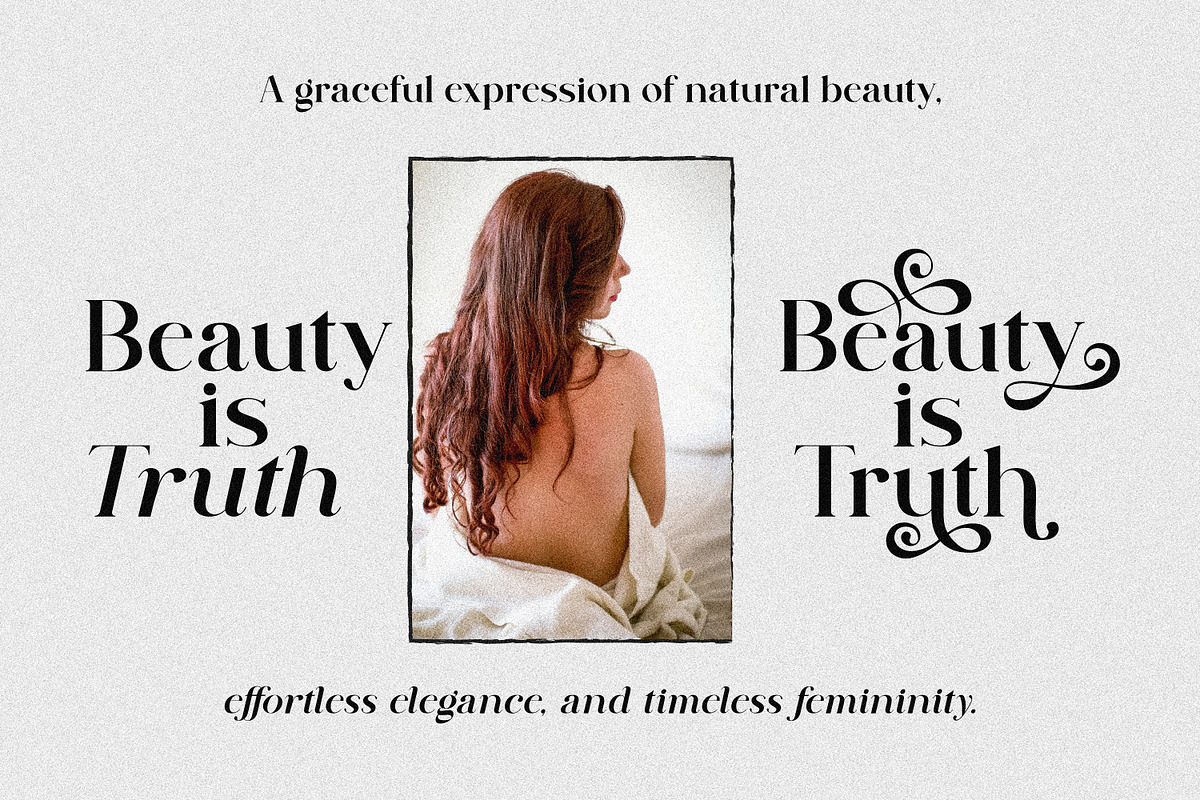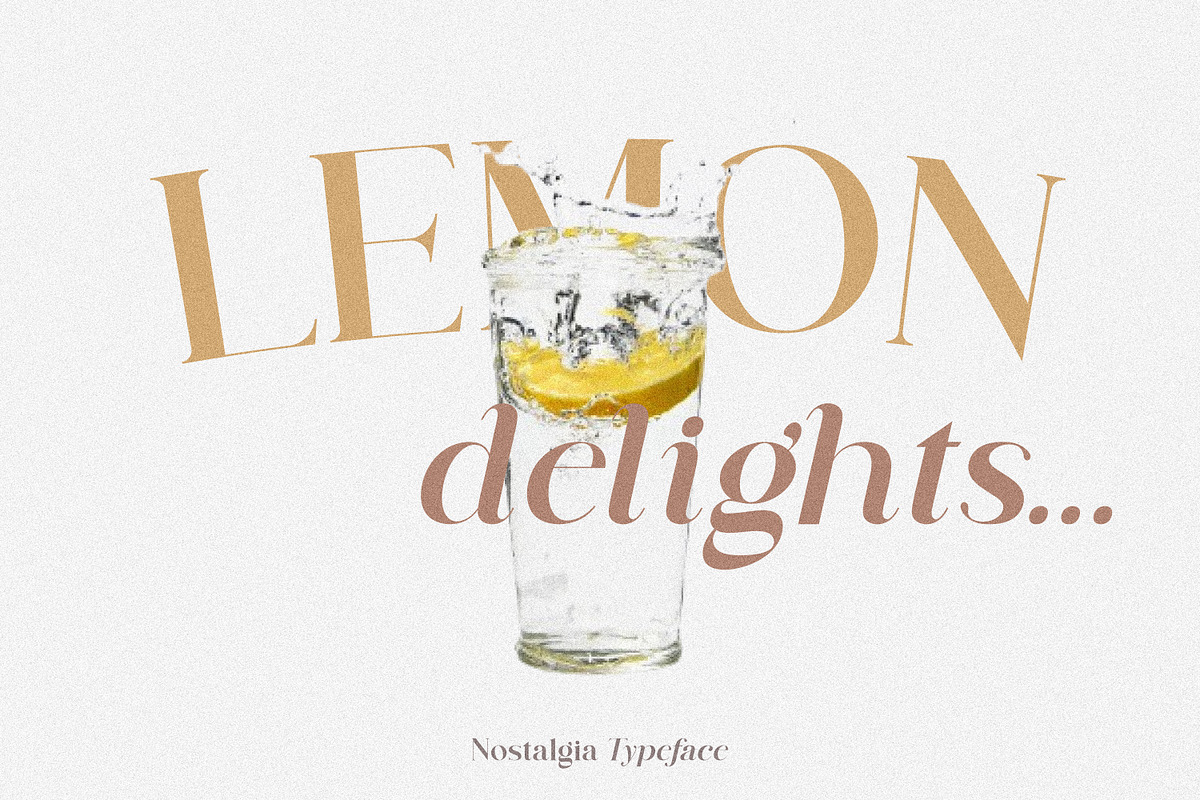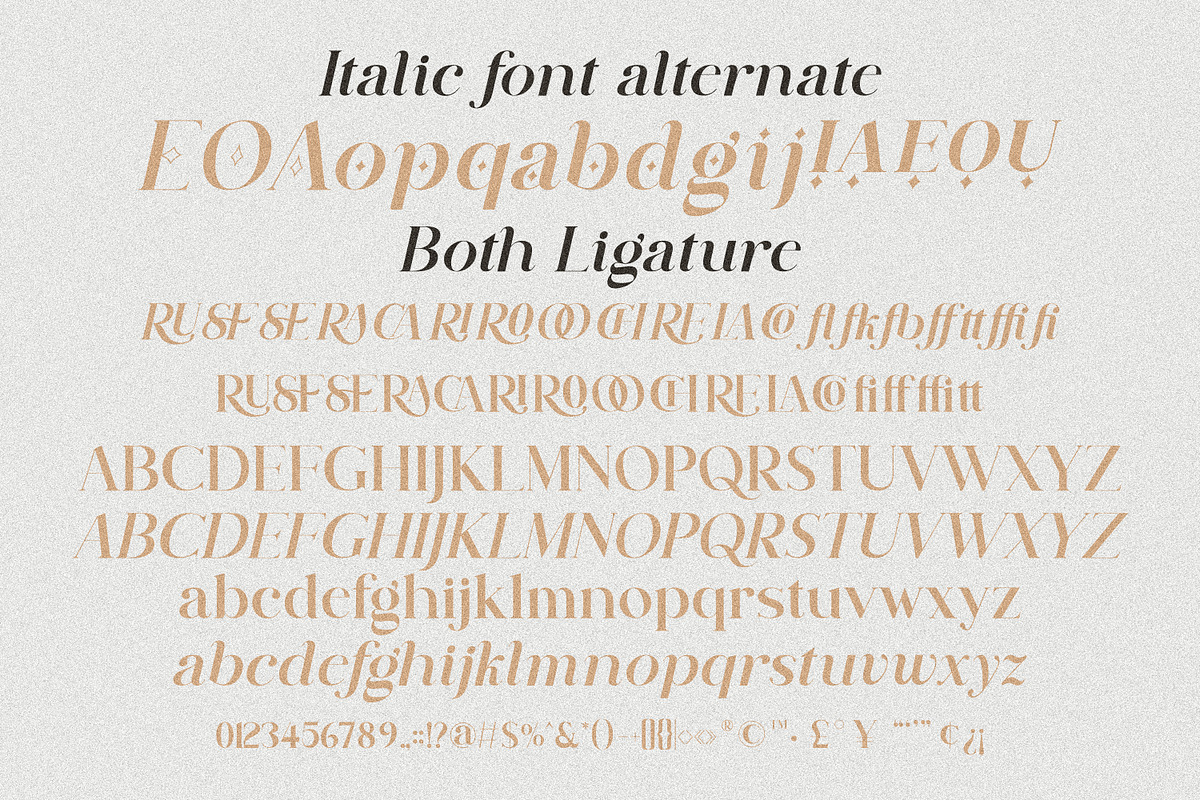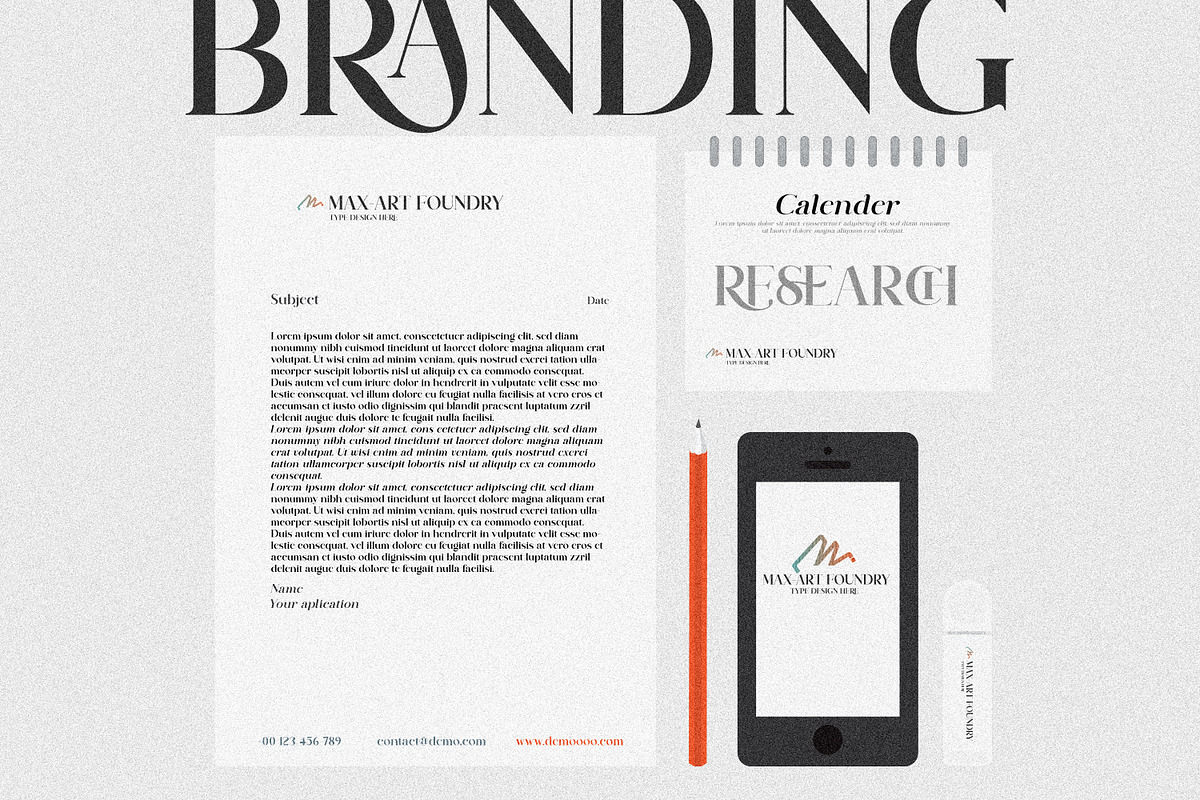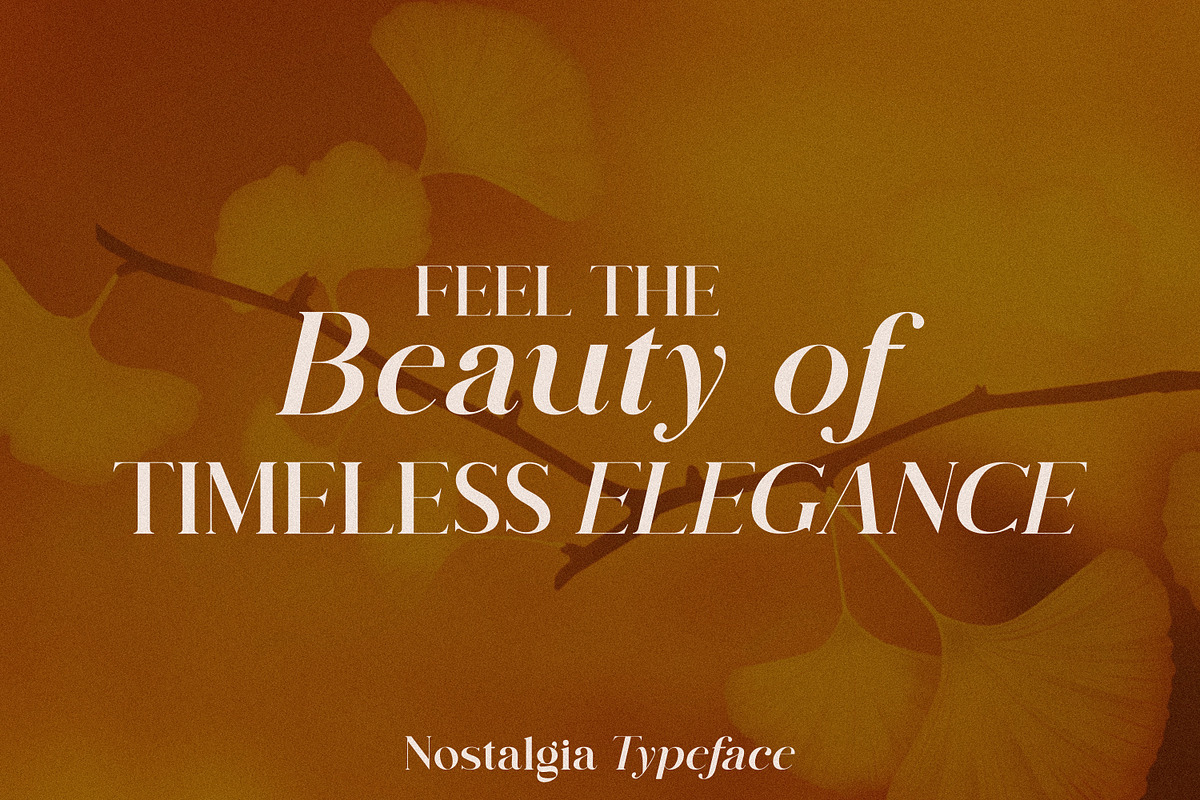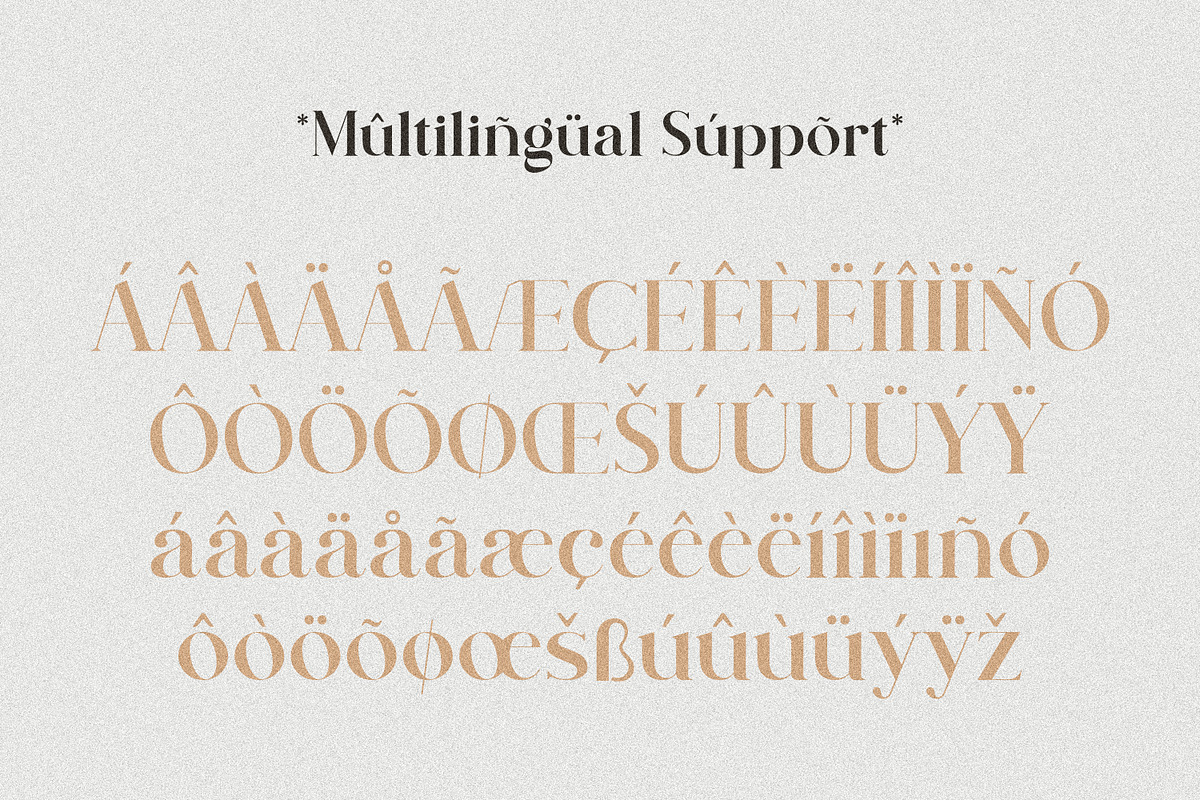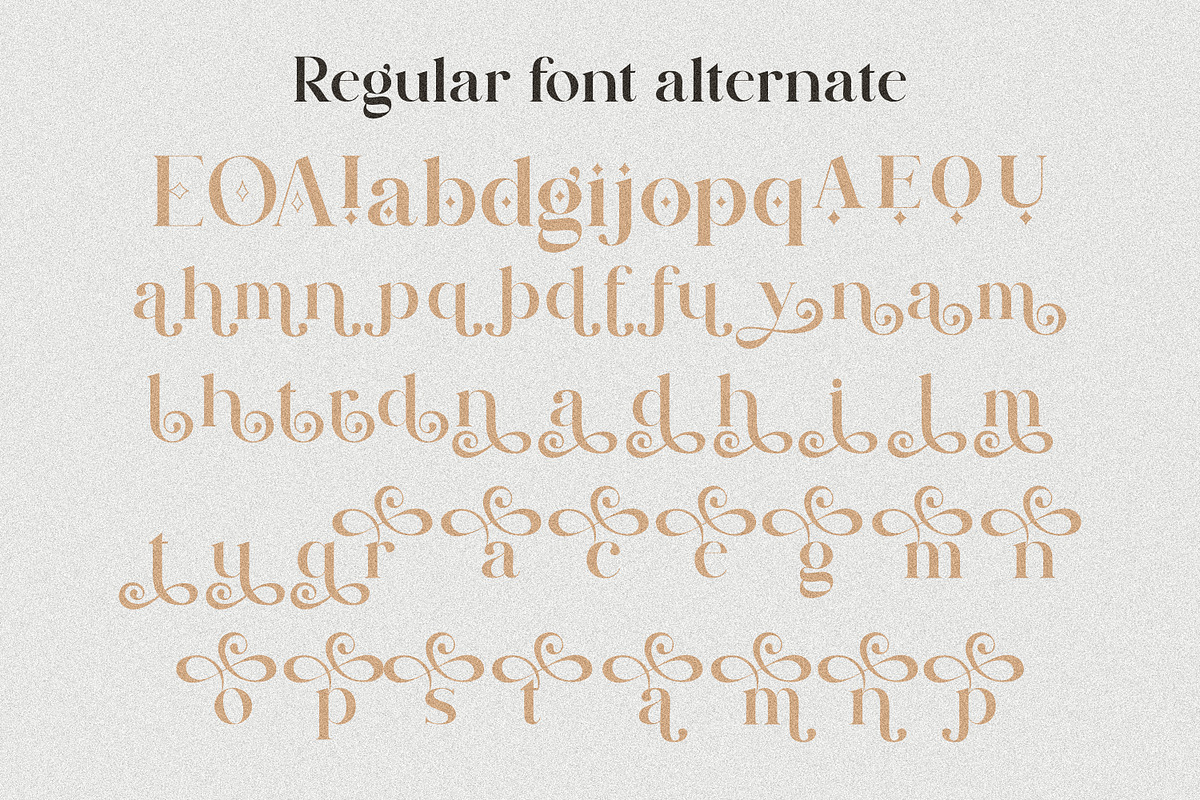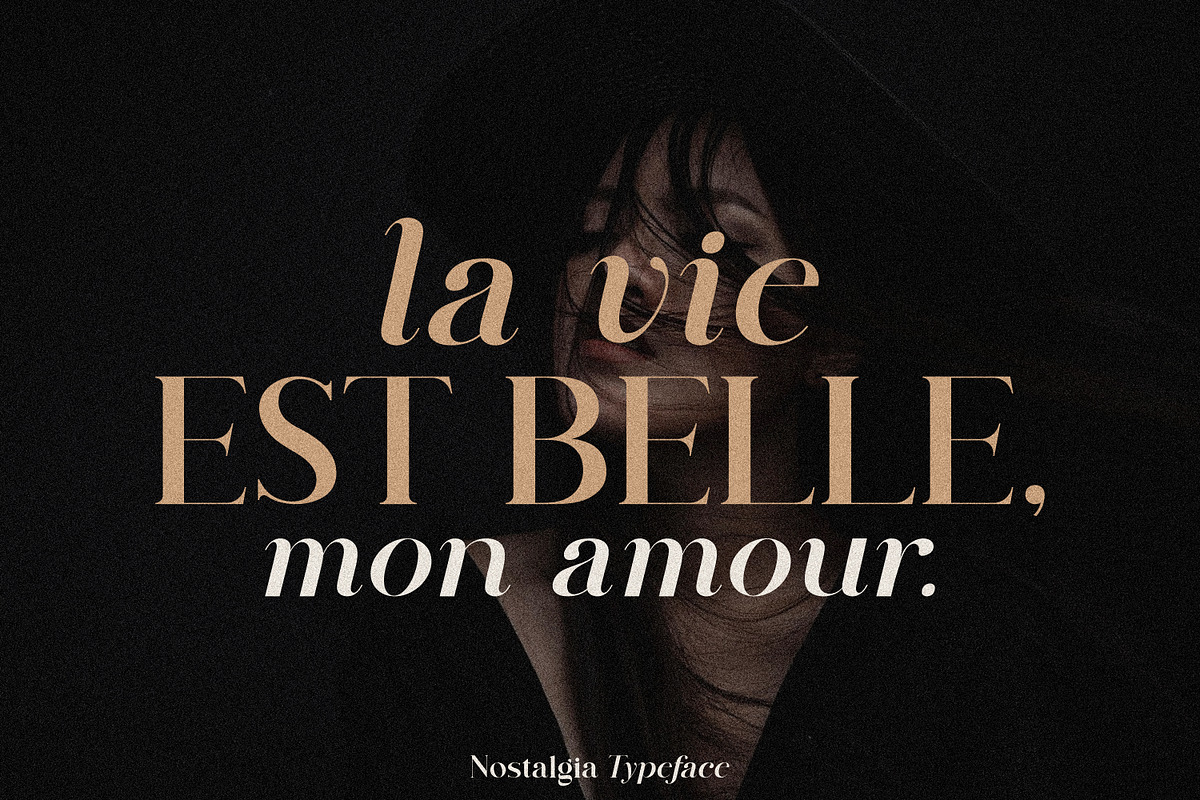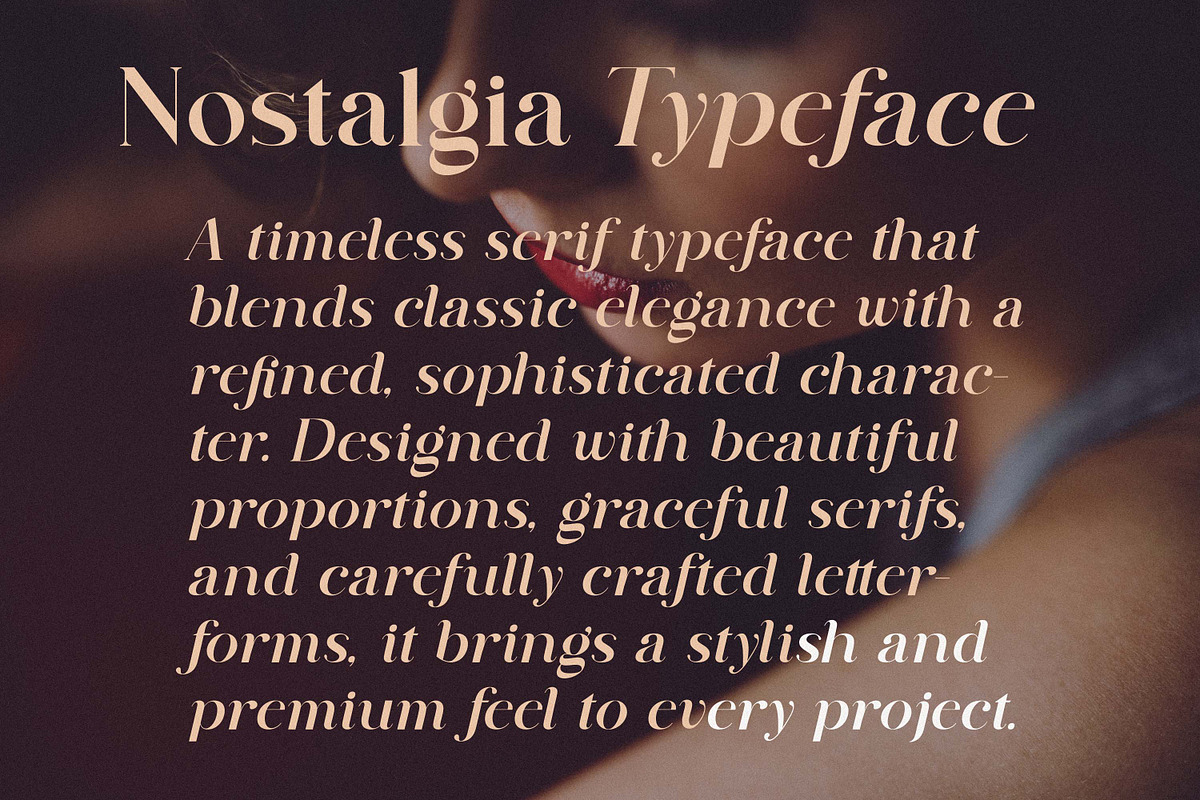
Nostalgia Typeface
Nostalgia Typeface is a clean serif typeface that brings a touch of elegance, character, and effortless beauty to your designs. Its elegant letterforms make every word feel more refined, creating a beautiful look for romantic wedding invitations, magazine headlines, and more. With carefully balanced proportions and sophisticated details, Nostalgia Typeface offers a clean and timeless appearance.
The font includes a collection of stylish alternates and elegant ligatures.
* Clean serif design
* Multilingual character
* Stylistic Alternates
* Beautiful Ligatures
* Uppercase & lowercase characters
* Numbers & punctuation
* Perfect for both modern and timeless designs
Nostalgia Typeface is made for those little typography moments that make a design feel special. Mix the alternates, explore the ligatures, and create something that feels uniquely yours.